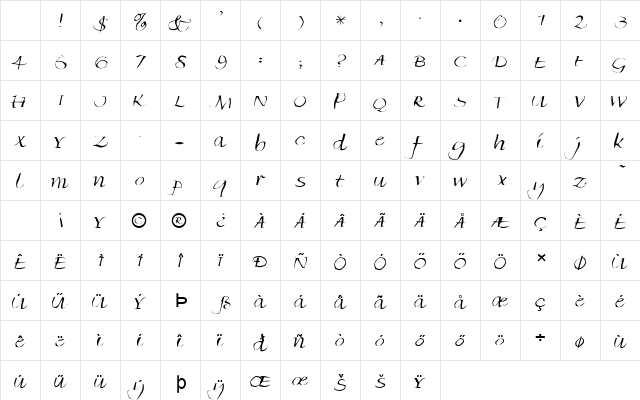
WARPED35 HU Normal Free Font
WARPED35 HU Normal
WARPED35 HU Family
Complete WARPED35 HU Normal glyph index. Displaying only characters natively supported by WARPED35 HU Normal font.
Design Context for WARPED35 HU
WARPED35 HU is a composed and adaptable typeface that performs quietly and consistently across a wide range of design contexts.